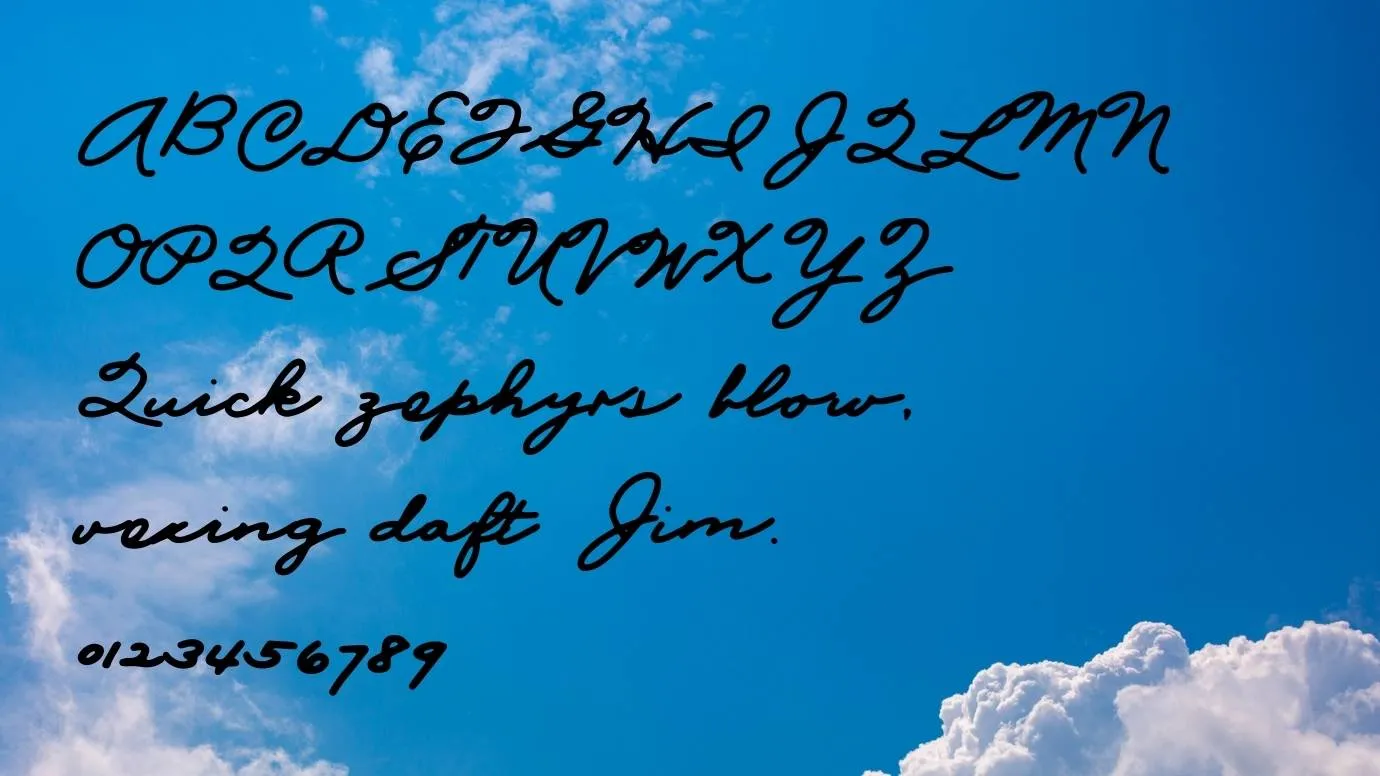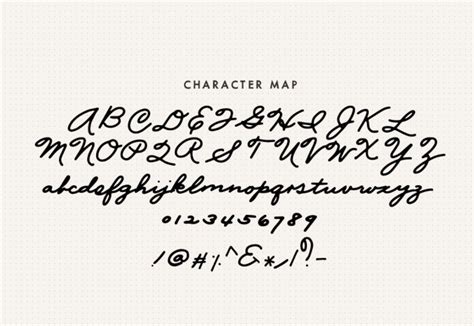
Palmer Script Font - Installable on pc, mac, linux, ios, and android platforms. Mix palmer script font, is my unsteady hand's take on the palmer method of writing. This typeface is perfect for creating a. Elevate your designs with palmer script regular font.
Elevate your designs with palmer script regular font. This typeface is perfect for creating a. Installable on pc, mac, linux, ios, and android platforms. Mix palmer script font, is my unsteady hand's take on the palmer method of writing.
This typeface is perfect for creating a. Elevate your designs with palmer script regular font. Mix palmer script font, is my unsteady hand's take on the palmer method of writing. Installable on pc, mac, linux, ios, and android platforms.
Palmer — An Unsteady Palmer Method Free script fonts, Palmer method
Mix palmer script font, is my unsteady hand's take on the palmer method of writing. Installable on pc, mac, linux, ios, and android platforms. This typeface is perfect for creating a. Elevate your designs with palmer script regular font.
This typeface is perfect for creating a. Elevate your designs with palmer script regular font. Installable on pc, mac, linux, ios, and android platforms. Mix palmer script font, is my unsteady hand's take on the palmer method of writing.
Elevate your designs with palmer script regular font. This typeface is perfect for creating a. Mix palmer script font, is my unsteady hand's take on the palmer method of writing. Installable on pc, mac, linux, ios, and android platforms.
This typeface is perfect for creating a. Elevate your designs with palmer script regular font. Installable on pc, mac, linux, ios, and android platforms. Mix palmer script font, is my unsteady hand's take on the palmer method of writing.
Installable on pc, mac, linux, ios, and android platforms. Mix palmer script font, is my unsteady hand's take on the palmer method of writing. This typeface is perfect for creating a. Elevate your designs with palmer script regular font.
Mix palmer script font, is my unsteady hand's take on the palmer method of writing. Elevate your designs with palmer script regular font. Installable on pc, mac, linux, ios, and android platforms. This typeface is perfect for creating a.
Installable on pc, mac, linux, ios, and android platforms. Mix palmer script font, is my unsteady hand's take on the palmer method of writing. This typeface is perfect for creating a. Elevate your designs with palmer script regular font.
Mix palmer script font, is my unsteady hand's take on the palmer method of writing. This typeface is perfect for creating a. Elevate your designs with palmer script regular font. Installable on pc, mac, linux, ios, and android platforms.
This typeface is perfect for creating a. Elevate your designs with palmer script regular font. Installable on pc, mac, linux, ios, and android platforms. Mix palmer script font, is my unsteady hand's take on the palmer method of writing.
Mix Palmer Script Font, Is My Unsteady Hand's Take On The Palmer Method Of Writing.
Installable on pc, mac, linux, ios, and android platforms. Elevate your designs with palmer script regular font. This typeface is perfect for creating a.